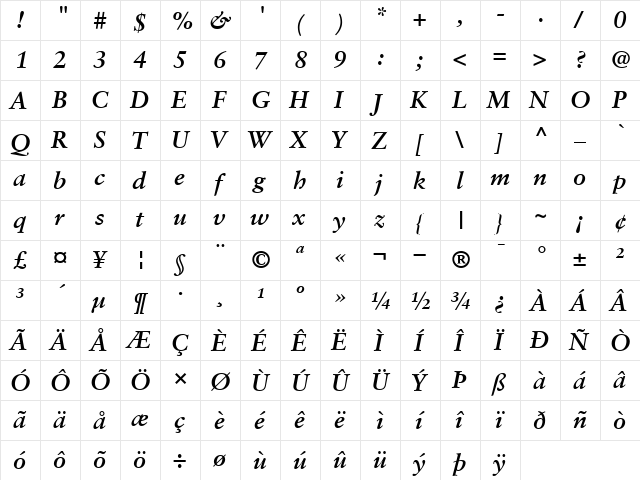
12Sabon*14232 BoldItalic
Design Context for 12Sabon*14232 Typeface
12Sabon*14232 takes a measured approach to typography — its balanced proportions and neutral character make it a reliable workhorse for both digital and print work. The slanted form adds forward momentum and visual energy. Its bold stroke weight gives it real presence on the page.
Pro Tip: Use 12Sabon*14232 for emphasis, pull quotes, and subheadings where its slanted energy can add rhythm to the layout.